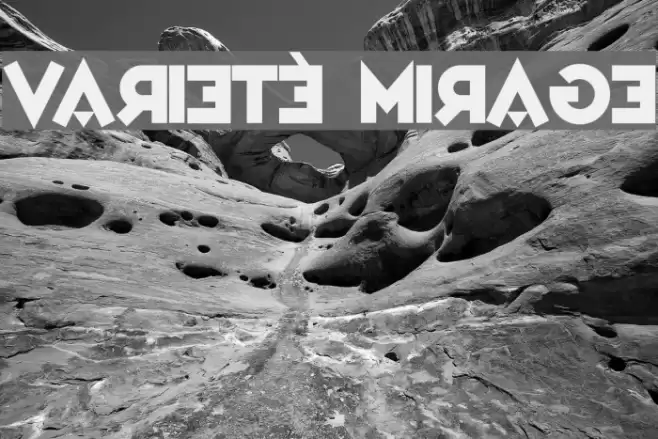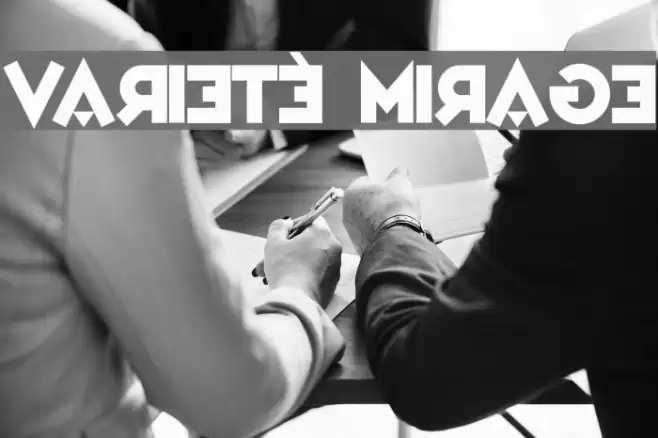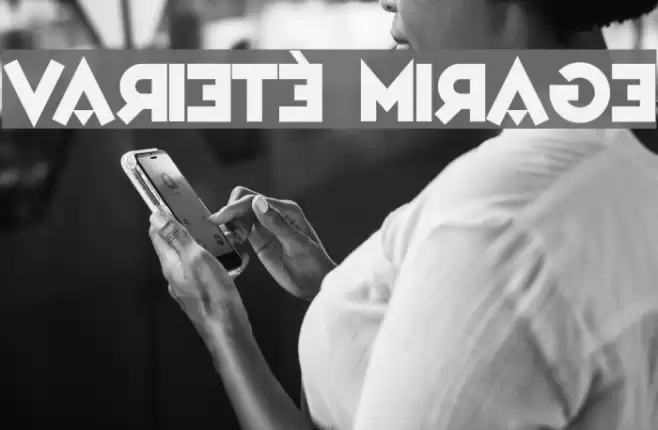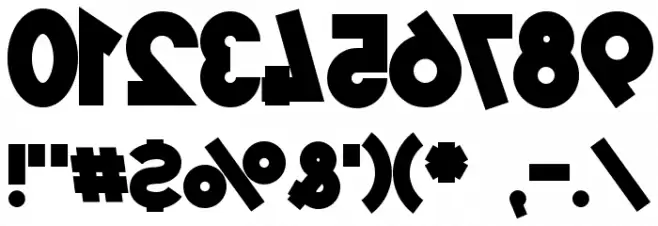
Varieté Mirage Font
Varieté Mirage Description
This font features bold, geometric shapes with a strong emphasis on angular forms and sharp edges. The uppercase letters are characterized by their solid, block-like appearance, while the lowercase letters maintain a consistent weight and structure. Numbers are equally bold, with a distinct, modern flair that complements the overall design. Special characters are crafted with the same attention to detail, ensuring a cohesive look across all glyphs. The font's design is both striking and versatile, making it suitable for a variety of creative applications.
A bold, geometric font with angular forms and sharp edges from Uncategorized fonts.